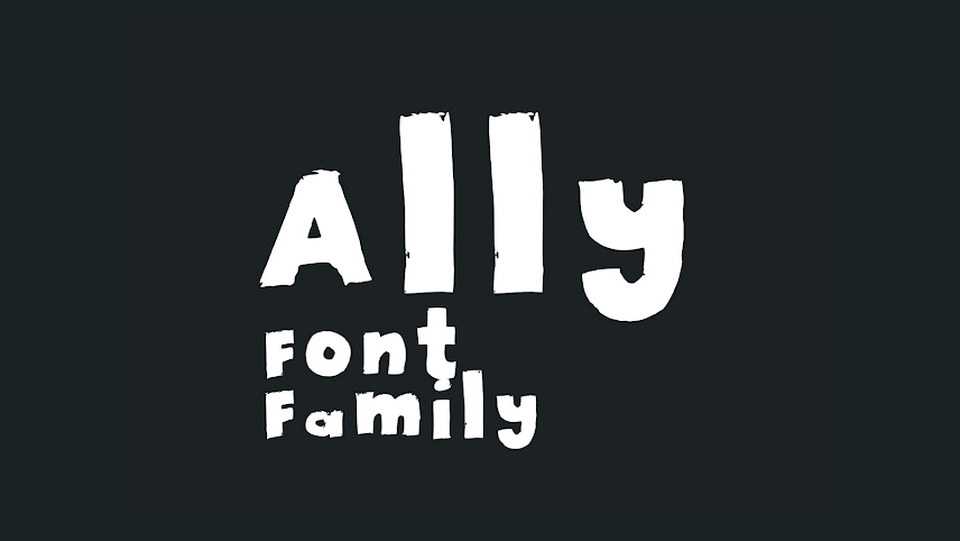
Download PVF Ally font, a bold and messy brush typeface that captures a raw, grunge style. PVF Ally is best used for short and bold headlines or titles, posters and prints.
Designer: Petros Vasiadis